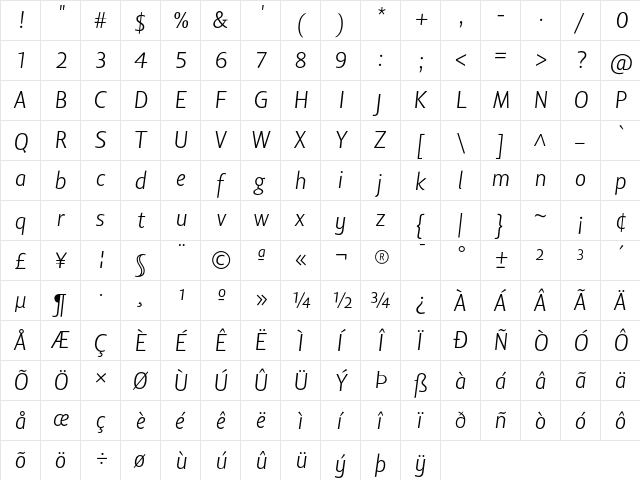
Lisboa Sans LF Light Italic Font Preview
Design Context for Lisboa Sans LF Light Typeface
Lisboa Sans LF Light offers clean, dependable letterforms without strong stylistic allegiance, making it a practical choice for designers who need flexibility. The dynamic lean of this cut emphasises speed and emphasis in any layout. Its slender proportions lend an understated elegance to any composition.
Pro Tip: Use Lisboa Sans LF Light for emphasis, pull quotes, and subheadings where its slanted energy can add rhythm to the layout.